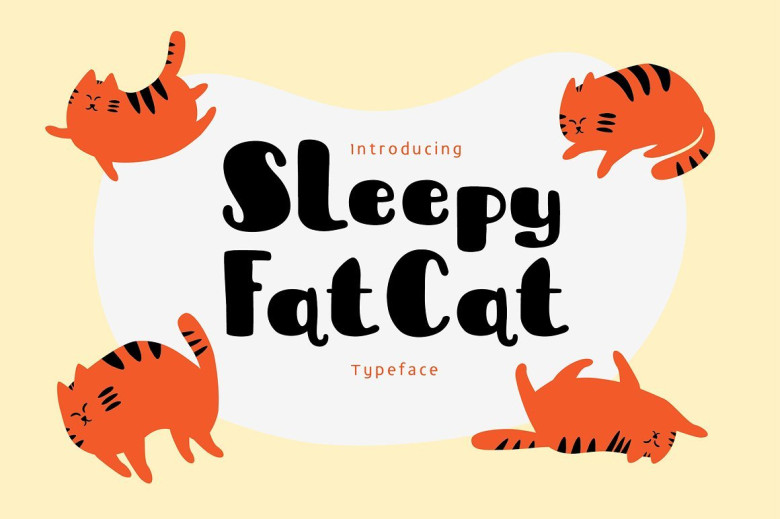
Sleepy Fat Cat Typeface
Introducing Sleepy Fat Cat Typeface! Sleepy Fat Cat designed by me55enjah, this is a premium font, are sold on creativemarket, but it was great, it is free today for download. A hand-made lettering, inspired by cute fat cat character. This doodle bold typeface can create some fun & playful character on your design. This typeface come with uppercase, lowercase, punctuation, numbers, alternate and an extra character. Extra come with 8 hand-made cat characters. TTF and OTF files are included.